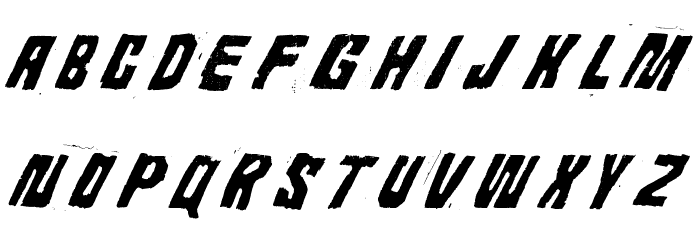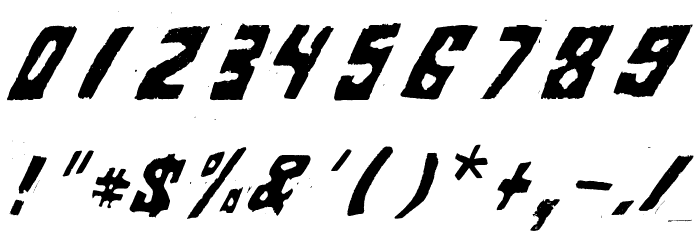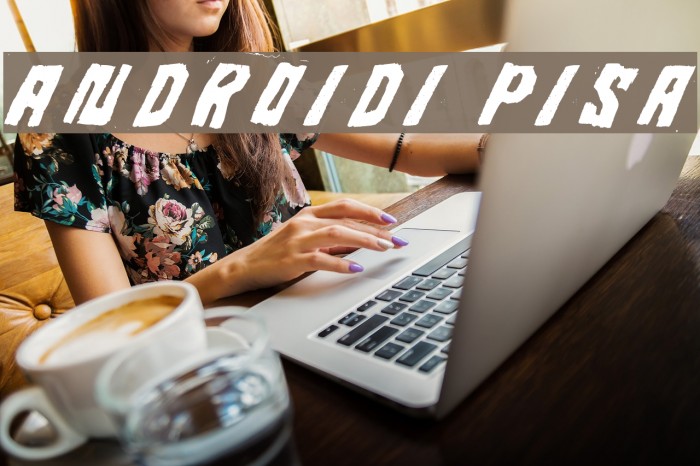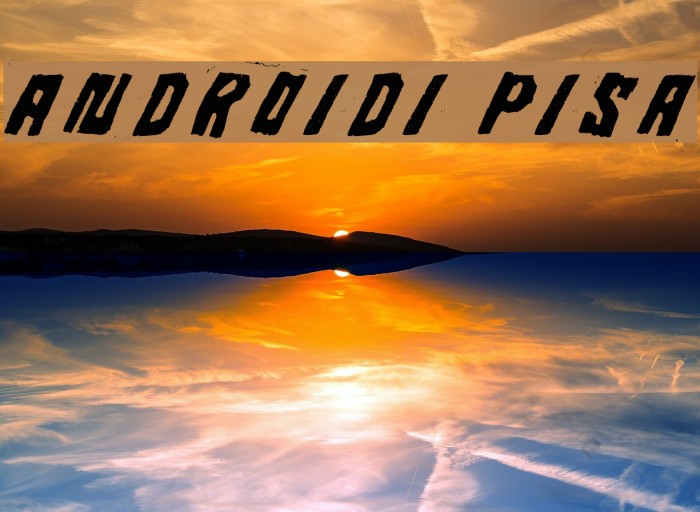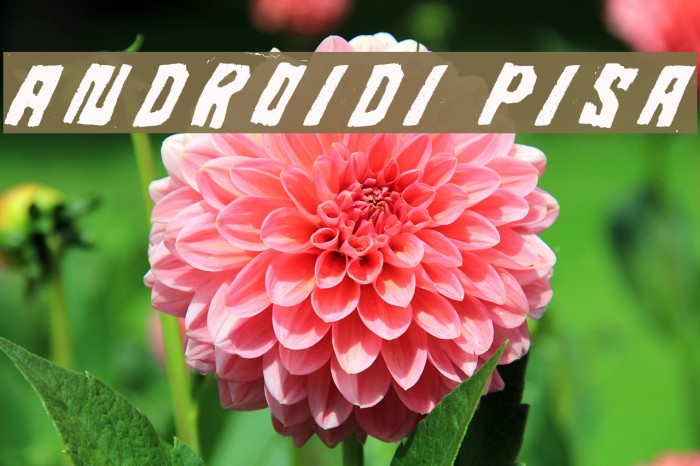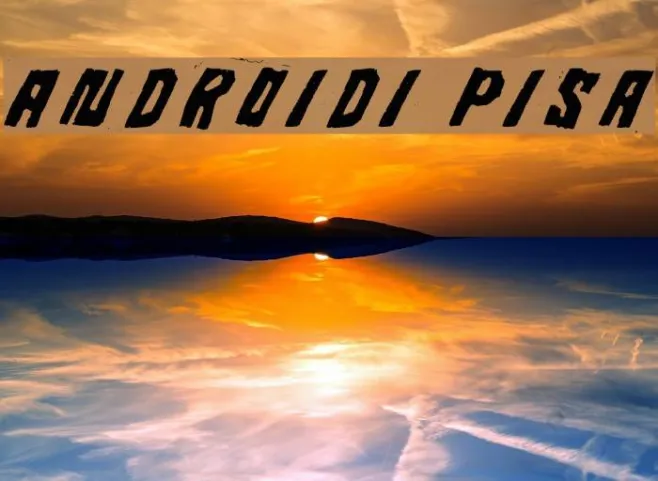
Androidi Pisa Font
This font exhibits a bold and dynamic style with a distinct slant, giving it a sense of motion and energy. The characters are heavily stylized with sharp, angular edges and a slightly distressed texture, adding a rugged and edgy feel. The uppercase letters are uniform in height, while the numerals and special characters maintain the same bold aesthetic. The font's unique design makes it stand out, suitable for projects that require a strong visual impact.
A bold, slanted font with a rugged, dynamic style.
- Proposed Projects: Ideal for sports branding, action movie posters, edgy fashion labels, or any project needing a bold, energetic typeface.
- Overall Style: Modern, Edgy